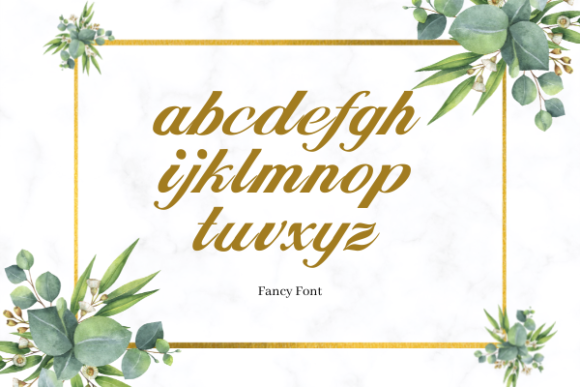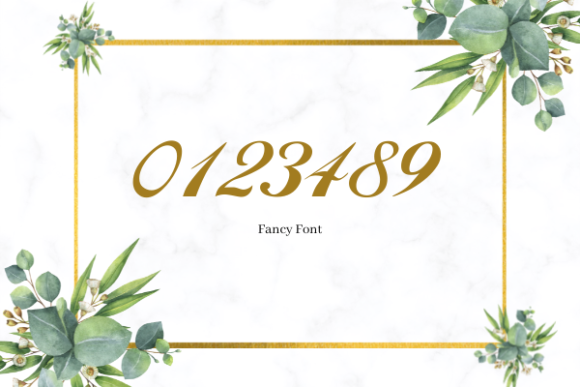
Elevate Your Designs with Fancy Fonts: Add a Touch of Elegance and Sophistication
Are you looking for a way to add a touch of luxury and sophistication to your graphic projects? Do you want to create a lasting impression on your audience with elegant and stylish typography? Look no further than fancy fonts, specifically the Fancy handwritten font that is taking the design world by storm.
What Makes Fancy Fonts So Special?
Fancy fonts are a type of typeface that exudes elegance, sophistication, and luxury. They are perfect for designers and crafters who want to add a touch of glamour to their projects. The Fancy handwritten font, in particular, is a stunning example of an elegant and stylish typeface that can elevate your designs to the next level.
This exquisite font features an italic look that is both refined and eye-catching. Its flowing lines and curves make it perfect for use in graphic projects, headers, cards, invitations, and more. Whether you’re designing a logo, creating a social media post, or crafting a beautiful invitation, this font is sure to impress.
The Benefits of Using Fancy Fonts in Your Designs
So, why should you choose to use fancy fonts in your designs? Here are just a few benefits:
- Elegance and Sophistication: Fancy fonts add a touch of luxury and sophistication to your designs, making them perfect for high-end brands, special occasions, and more.
- Versatility: Fancy fonts can be used in a variety of design projects, from graphic design and branding to crafting and DIY projects.
- Emotional Connection: Fancy fonts can evoke emotions and create a lasting impression on your audience. They can add a touch of warmth, elegance, and refinement to your designs.
Features of the Fancy Handwritten Font
The Fancy handwritten font is a standout typeface that offers a range of features that make it perfect for designers and crafters. Here are just a few:
- PUA Encoded: This font is PUA encoded, which means you can access all of the glyphs and swashes with ease. This makes it simple to customize your designs and add your own personal touch.
- Elegant and Stylish: The Fancy handwritten font features an elegant and stylish design that is perfect for adding a touch of luxury to your projects.
- Italic Look: The font’s italic look adds a touch of sophistication and refinement to your designs.
How to Use Fancy Fonts in Your Designs
| Font Name | Fancy Font |
In conclusion, the Fancy handwritten font is a stunning example of an elegant and stylish typeface that can elevate your designs to the next level. With its PUA encoded feature, elegant design, and italic look, it’s perfect for designers and crafters who want to add a touch of luxury and sophistication to their projects. Whether you’re designing a logo, creating a social media post, or crafting a beautiful invitation, this font is sure to impress.